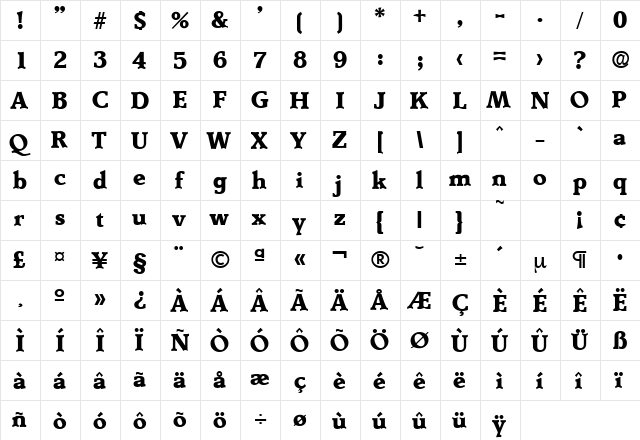
Derringer-Serial-ExtraBold Regular
Design Context for Derringer-Serial-ExtraBold Typeface
Derringer-Serial-ExtraBold is a composed and adaptable typeface that performs quietly and consistently across a wide range of design contexts. Its bold stroke weight gives it real presence on the page.